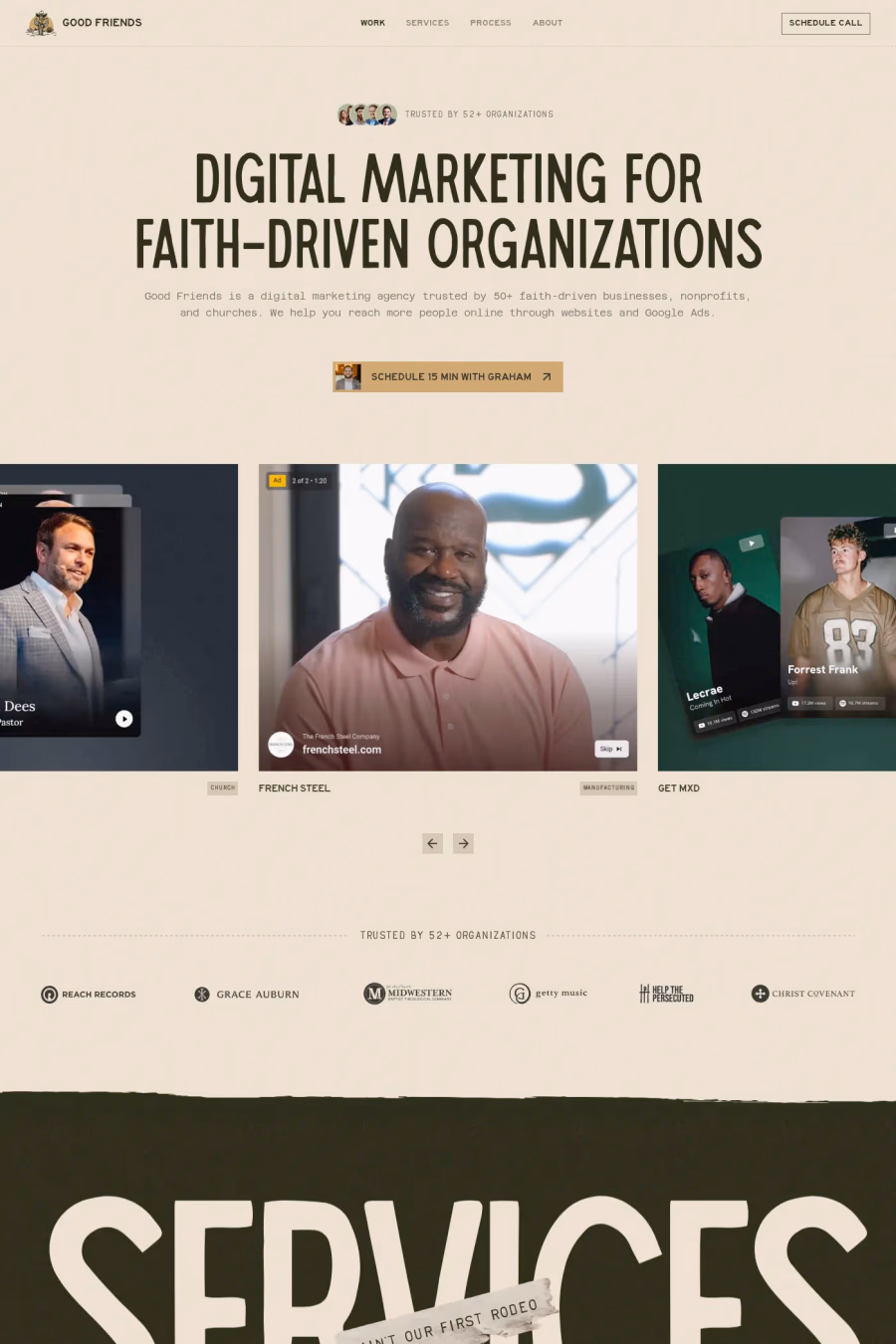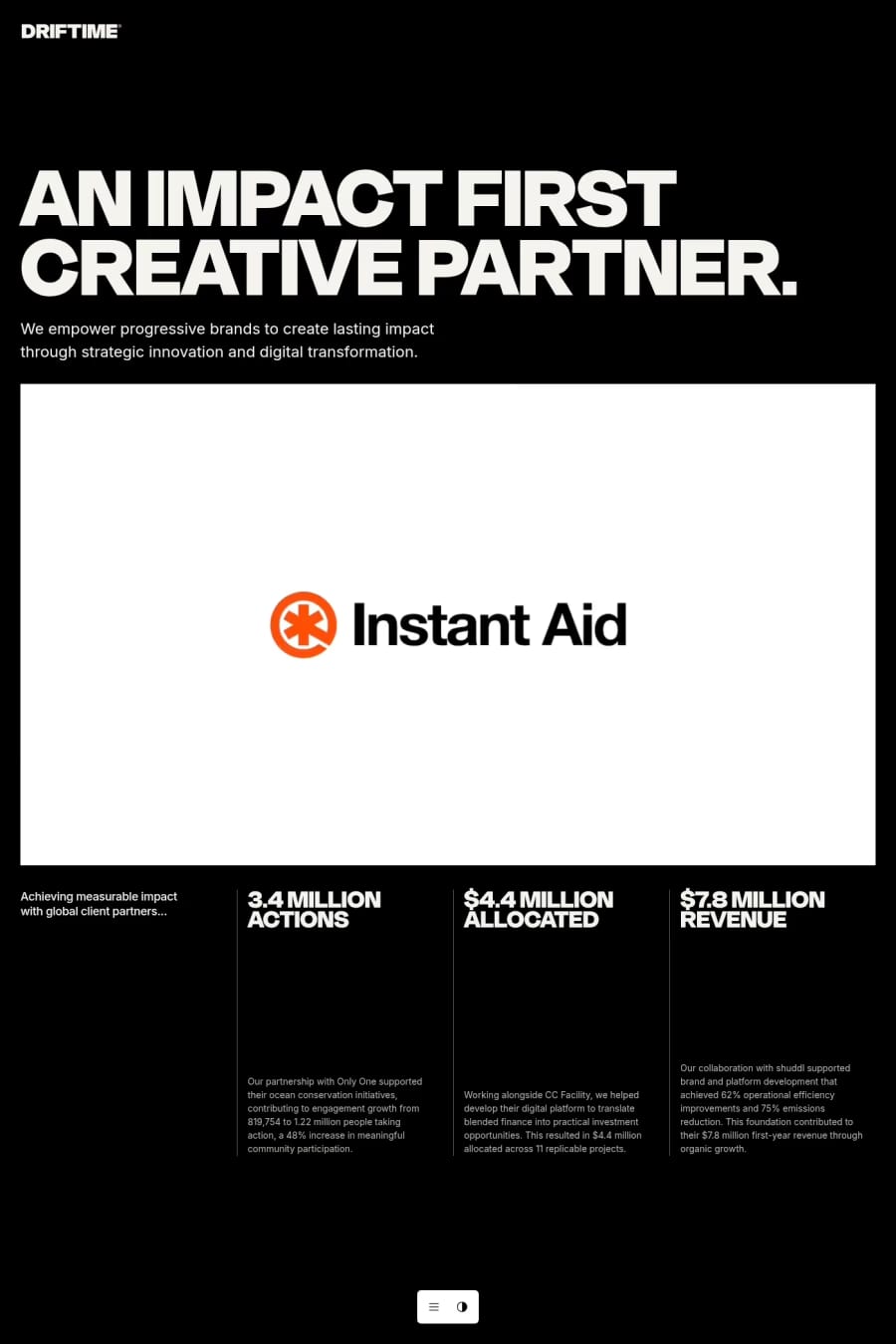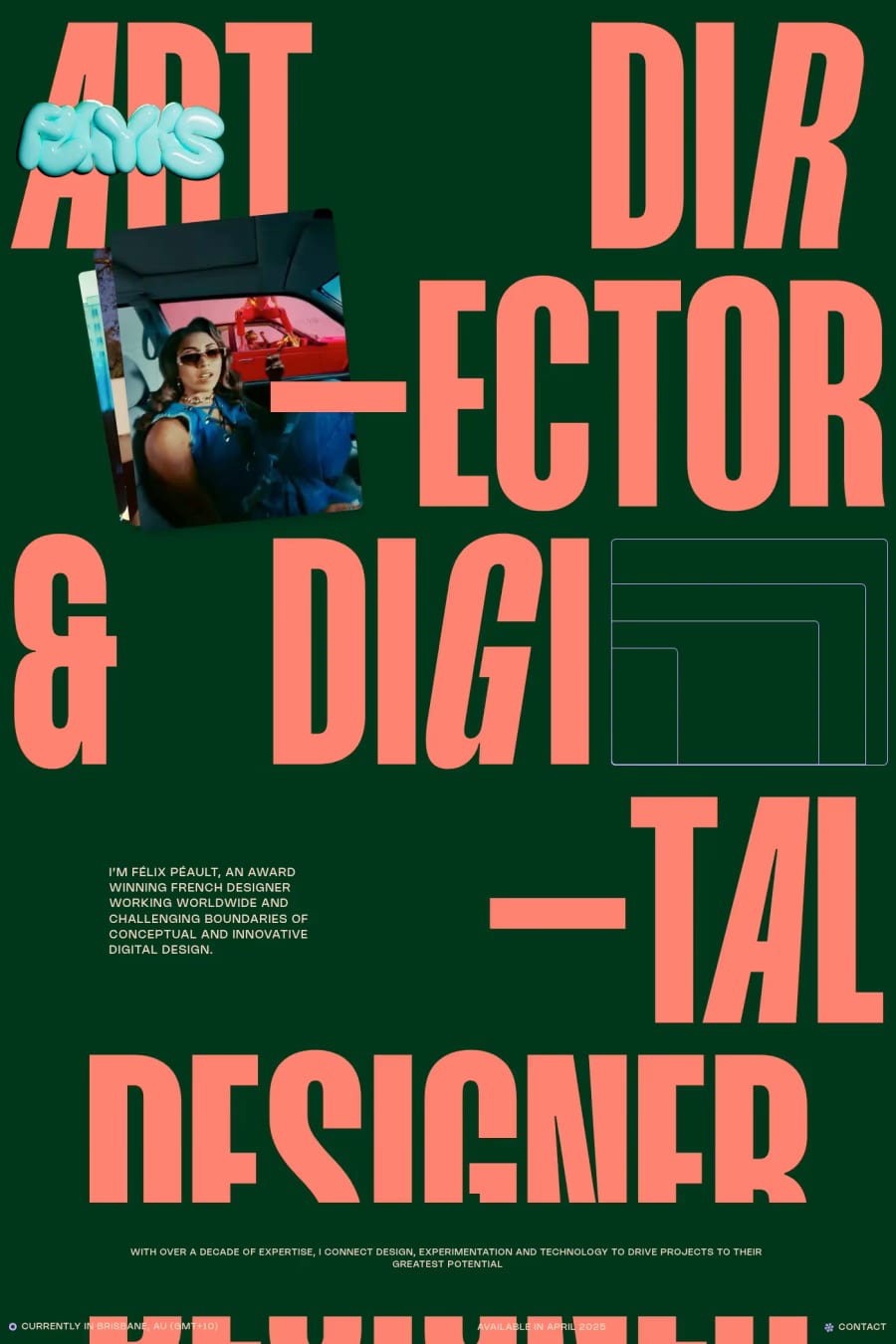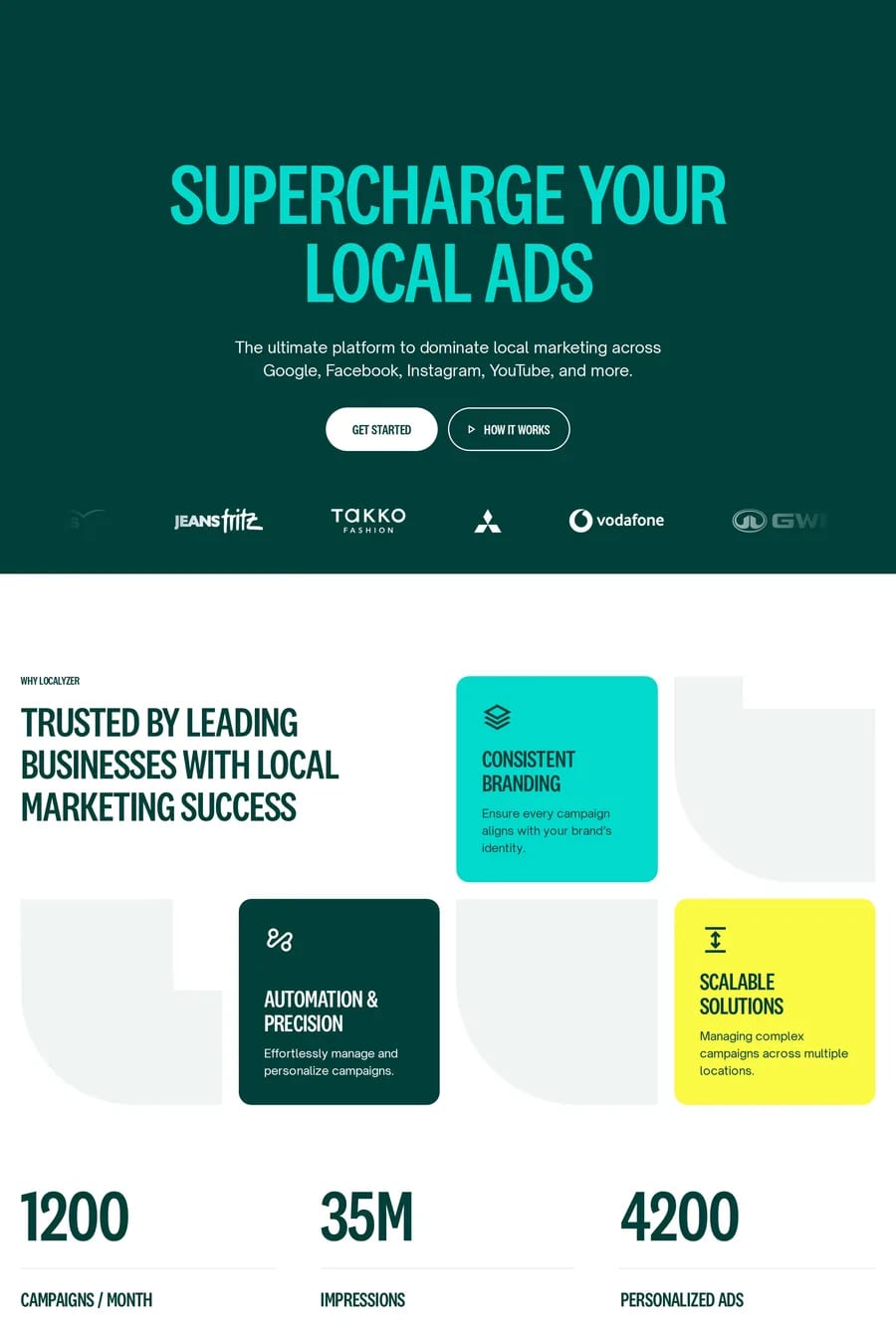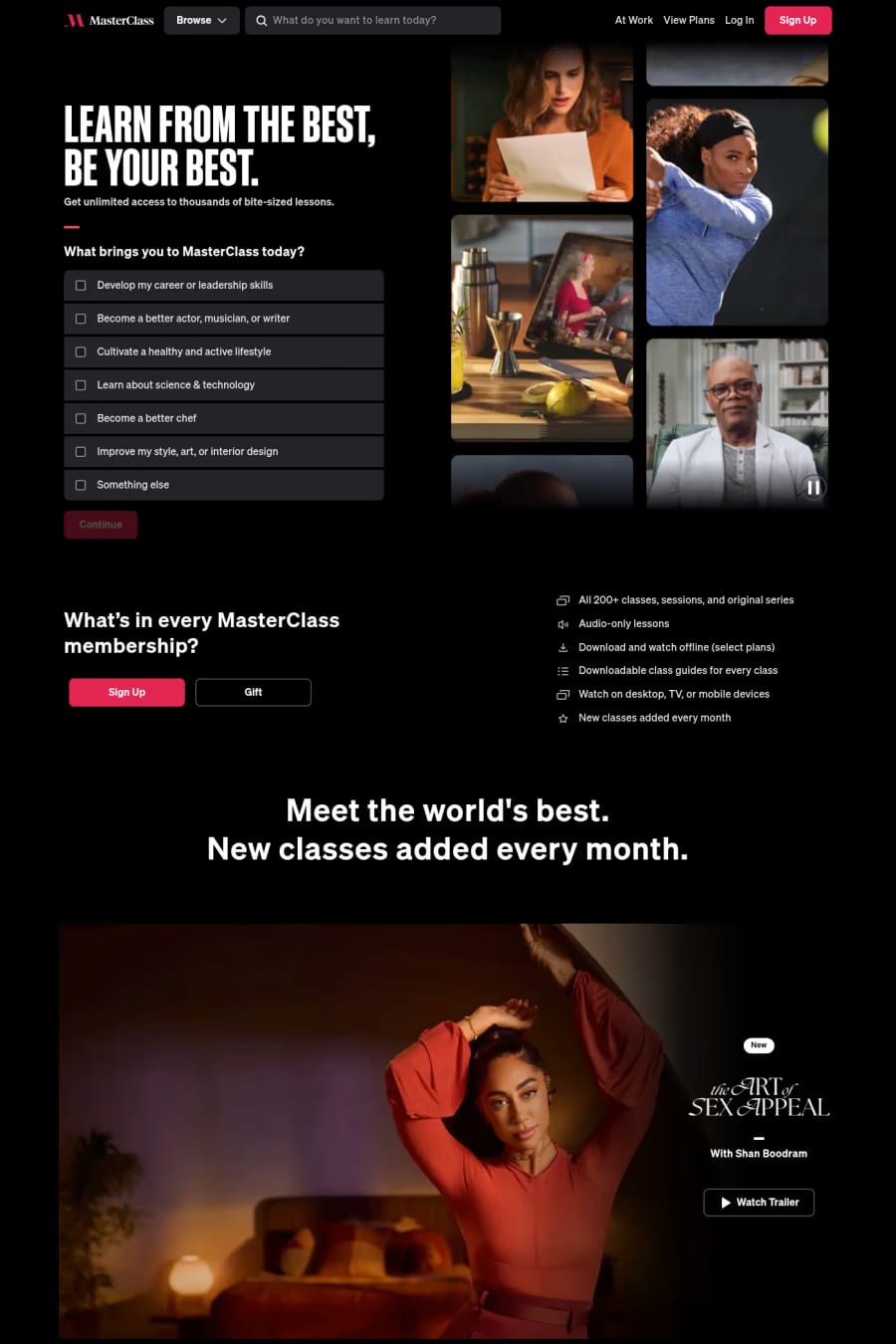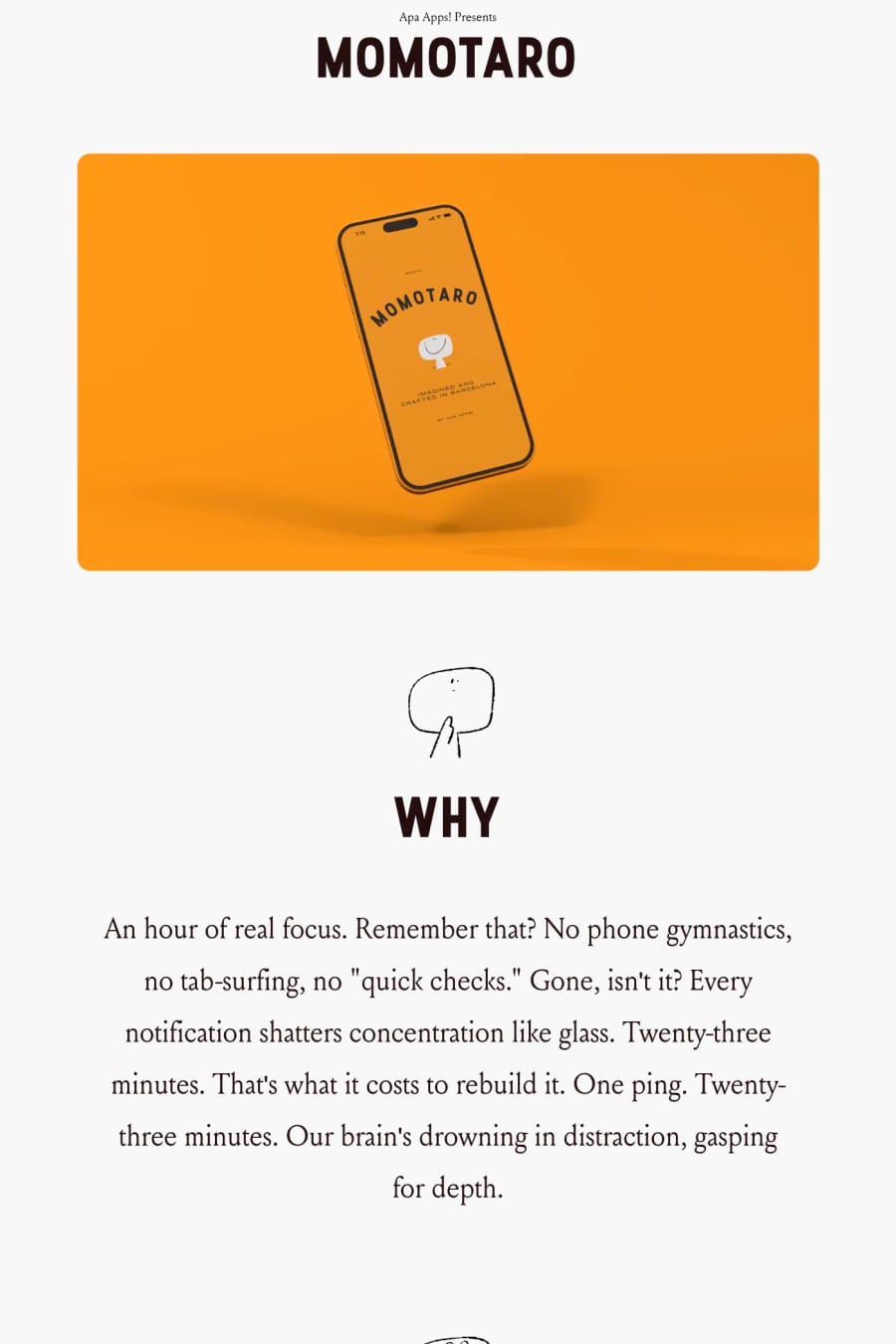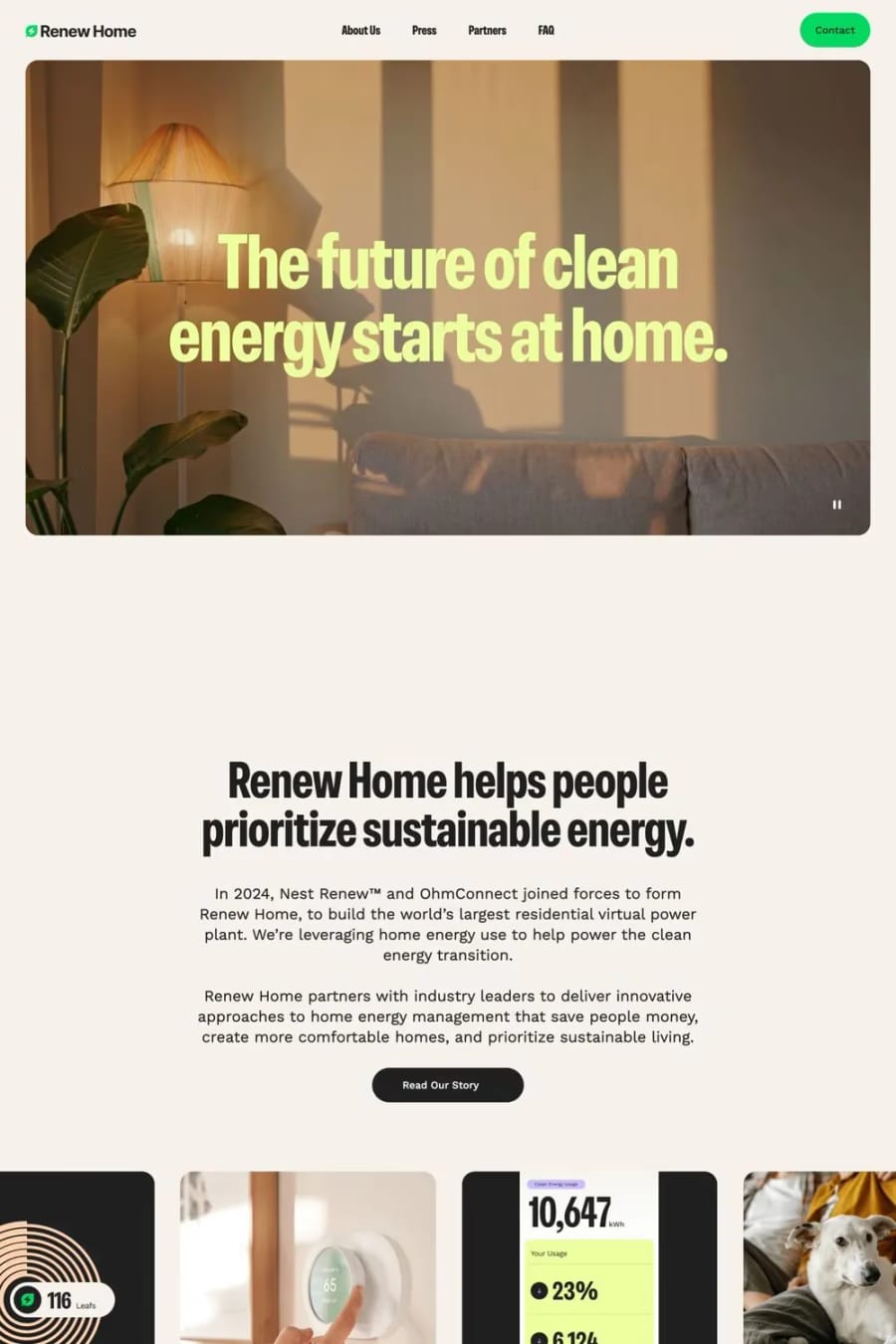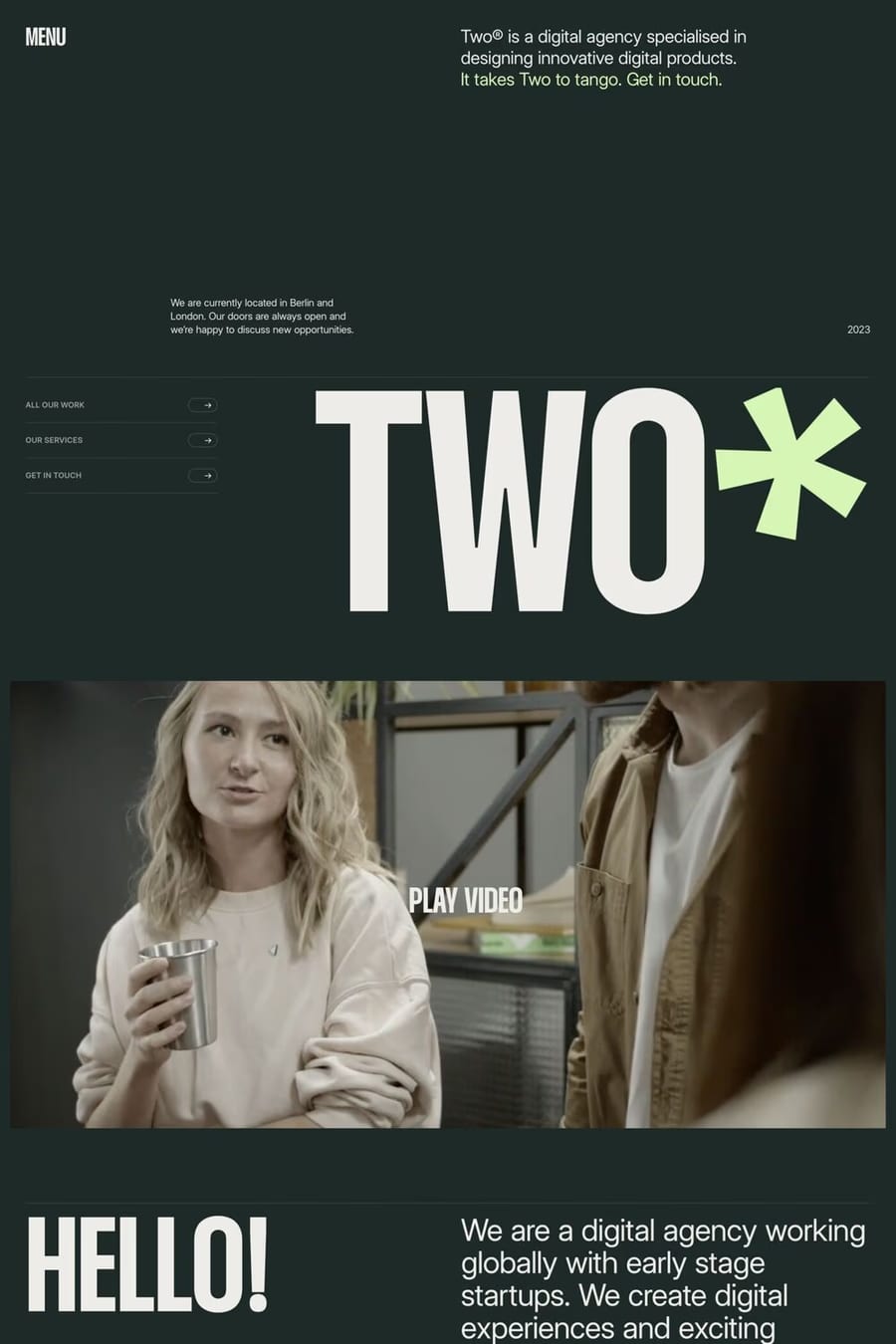
Condensed fonts excel in headlines, navigation bars, and situations where horizontal space is limited but vertical impact is desired. They allow more words per line at large sizes and create a rhythmic, column-like visual texture that feels editorial and intentional.
Bebas Neue, Antonio, Oswald, and Barlow Condensed are widely used free options. On the premium side, GT America Condensed, Druk, and Helvetica Now Compressed are favourites among agencies and studios for their refined character at display sizes.